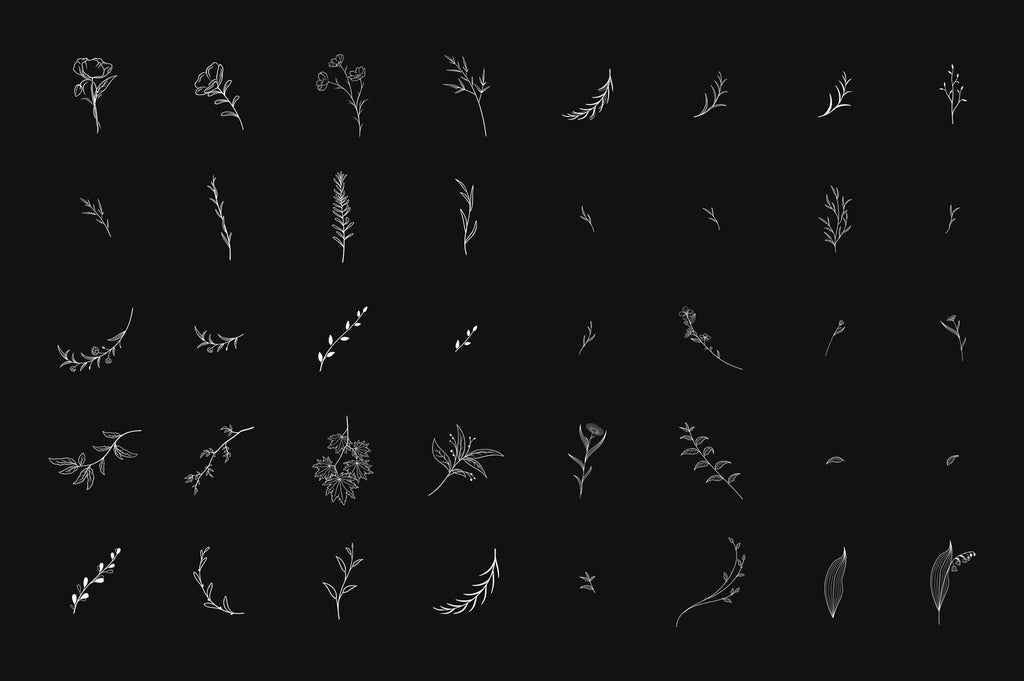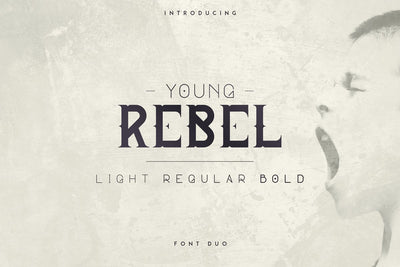
Ultimate Font Collection
I am proudly Introducting you Ultimate Font Collection!
In this collection we gathered 2 years of our creativity, perfection and hard work 🙂
Every font crafted by us is custom and premium loaded with alternate glyphs, ligatures, graphic assets or different weights and styles.
In this collection you will find 90+ typefaces with 296 fonts in total + tons of graphic assets, photoshop styles, logo templates and more!
• Lotus Eater – sans serif font (latin & cyrillic support)
• Carnival VP – Slab serif font (latin & cyrillic support)
• Harrison – Retro Typeface (latin & cyrillic support)
• Enchants – Magical font (latin & cyrillic support) + Extra graphics
• Unreal Serif font (latin & cyrillic support)
• Blue Gold – Sans serif font + Extras
• Propaganda – Vintage typeface
• Mallie – Fusion font
• Clementine script
• Phoenix – Display font
• Orenda script
• Monument – Serif font
• Kindel script
• Sunflower – Font Duo
• Kindel – Serif typeface
• Kindel – Sans serif typeface
• Kalorama – font duo
• Fabulist – Display font
• Explorers – Serif font + Extras
• Errorist – Vintage typeface
• Afterclap typeface – 3 styles
• Lotus Eater – Vintage font + Extras
• Mondaze typeface
• Minbus – Display font
• Black Gold serif font + Extras
• Lelushka Script + Ink marks
• Bosnia – Sans serif typeface
• Mantrum – Urban script
• Exquisite – Serif typeface
• Zemarah script
• Pathway script
• Sunlight – Signature typeface
• Searchlight – font trio
• Mooka Powder – font duo
• Serendius – Display font
• Momentus serif font + Extras
• Indigo Typeface
• Dream – Magical serif font
• Hippo Sans serif typeface
• Bock – logo font
• Bohem – Display typeface
• Ultimus serif font
• Crossroad – Vintage typeface
• Desire – Luxury Serif font
• Alpha typeface
• Contraband – Display font
• Marvin typeface
• Trixie script
• Musa Display typeface
• Vendee – serif font
• Kavaler – serif font
• Belinda script
• Tamira – Luxe serif typeface
• NorthEast typeface
• Golden Bird – serif font
• Signature vp script
• Hashtag Moderna – font duo
• Fonatik Display font + extras
• Sugar Spice – font duo + extras
• Highway – vintage typeface + extras
• Knowhere – display typeface
• DarkHeart Brush font
• Georgia luxurious serif font
• Melancholy display typeface
• Madhouse – font duo + Extras
• Horizon – font family
• Desislava luxurious typeface + extras
• Opinio – sans serif family
• Summer – display font family
• Elena luxe serif typeface
• Rhino bold font + styles
• Varna – slab serif font family
• Ramini – rounded sans serif typeface
• Alexandria font family
• Pinchik sans family
• BluPurpl font family
• Elephant font family
• Kalpazan font family
• Young Rebel font duo
• Irina luxe serif font
• Cvetanoff sans serif font
• Pandora display font
• Kocka display font
• Vovchik serif font
• Komorebi display font
• Spring Vibe serif font
• Splendor font
• April display font
• JaneDoe sans serif font
• Gentleman font + 10 logos
• RoseGold serif font + 10 logos
EVERY SINGLE FONT IN THE COLLECTION SUPPORT MULTILINGUAL
But only these gems have cyrillic alphabet ( Russian, Ukrainian, Bulgarian and more) in them!
Honorable mentions
BluPurpl, Dark Heart, Desislava, Fonatik, Gentleman, Georgia, Golden Bird, Hashtag Moderna, Highway, Lelushka, Mad House, Melancholy, Rose Gold and Sugar Spice have graphic designs in them as well. You can find them in graphic folder 🙂